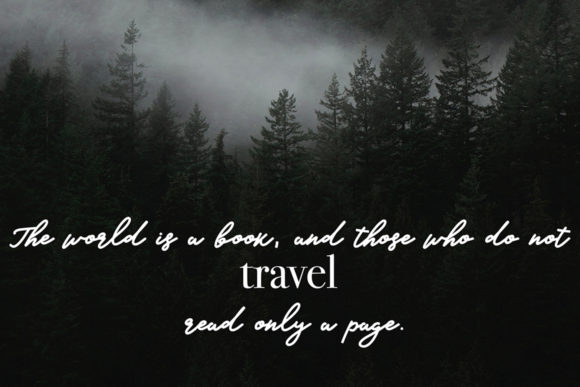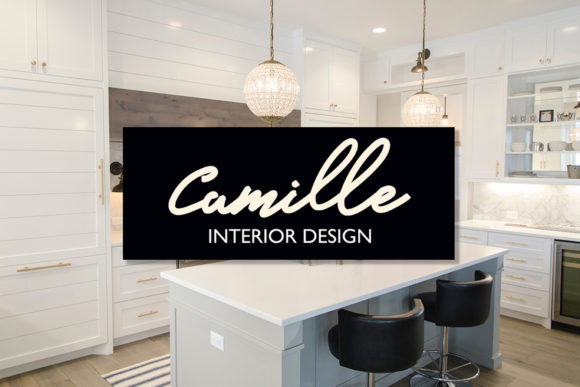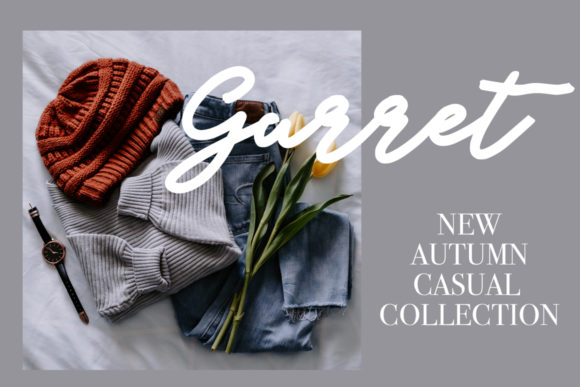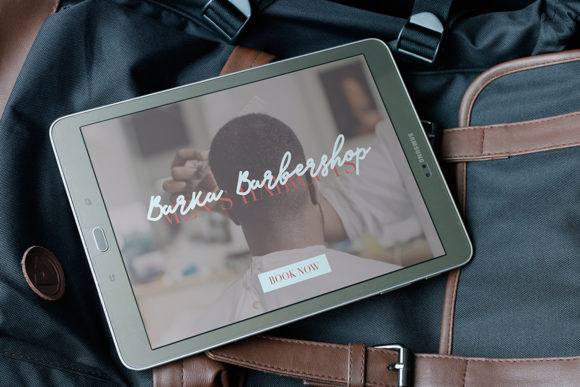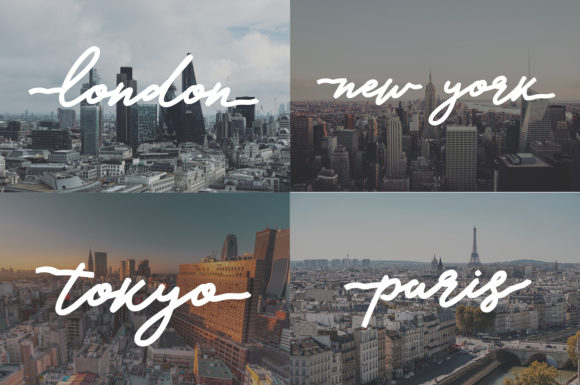
Introduction to Passenger Font
Passenger is a stylish handwritten font with bold flowing characters.
It is well-suited for a wide variety of projects .
Key Features of Passenger Font